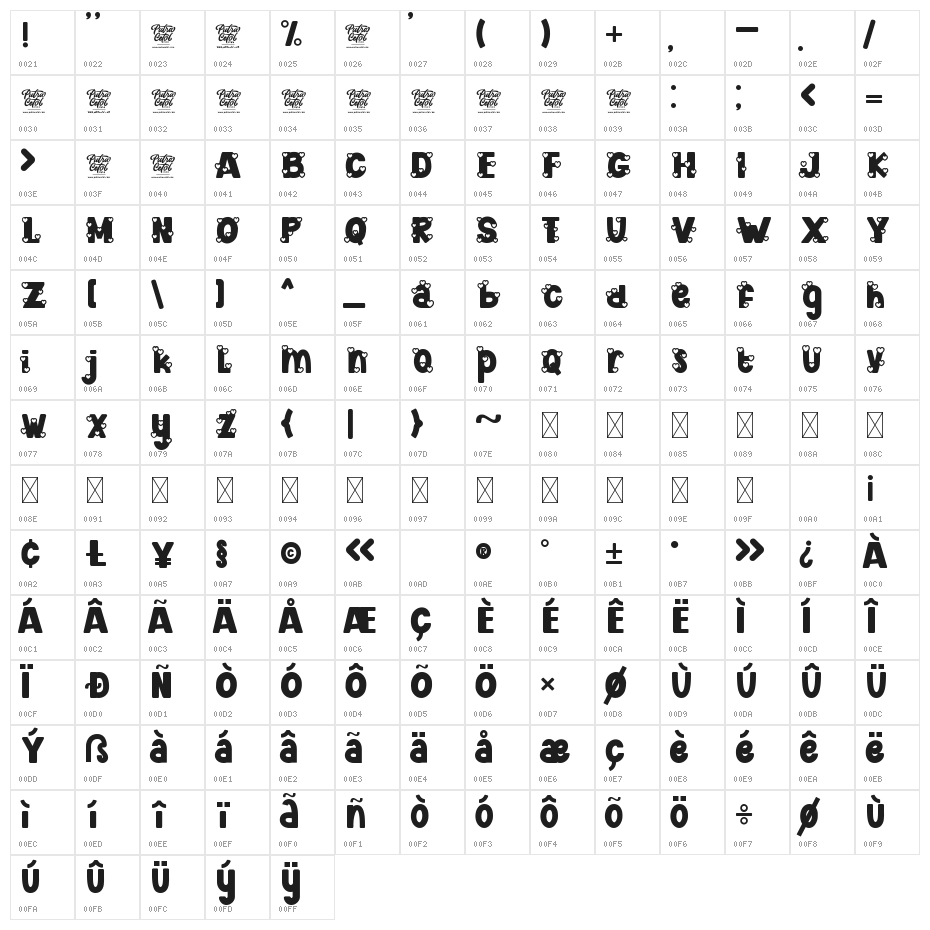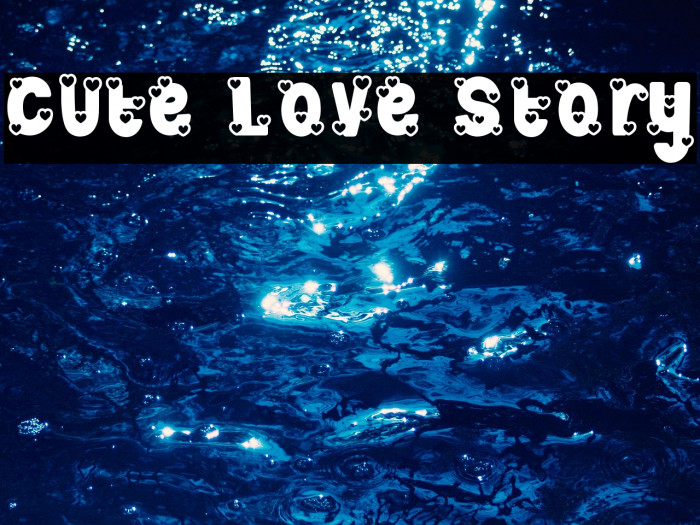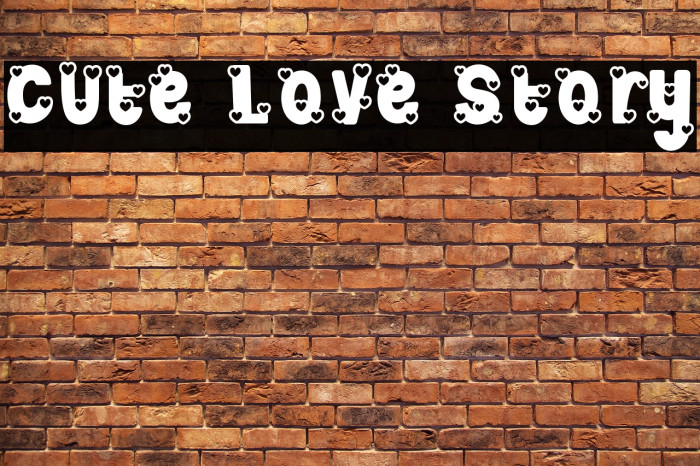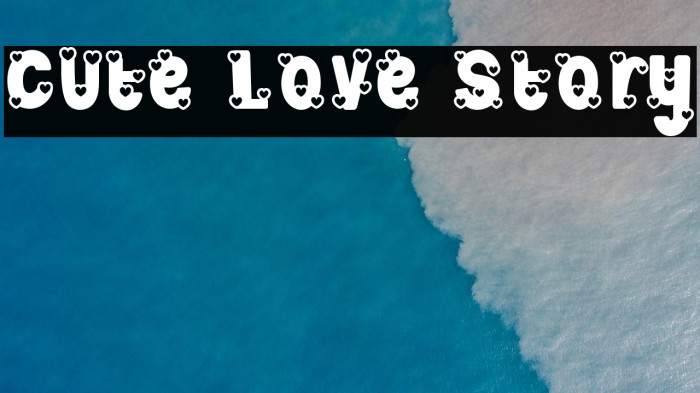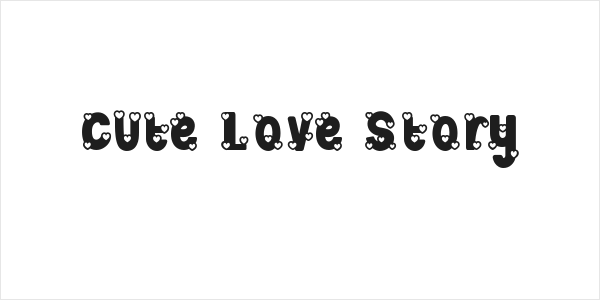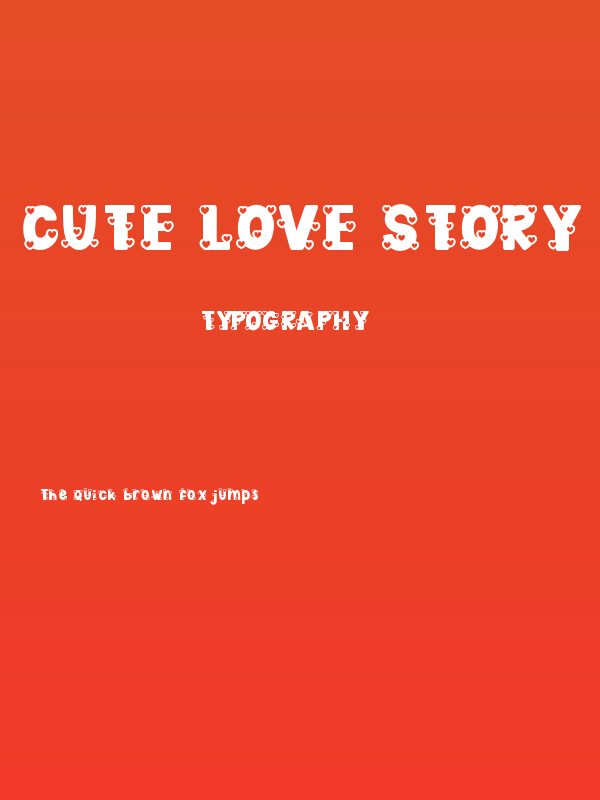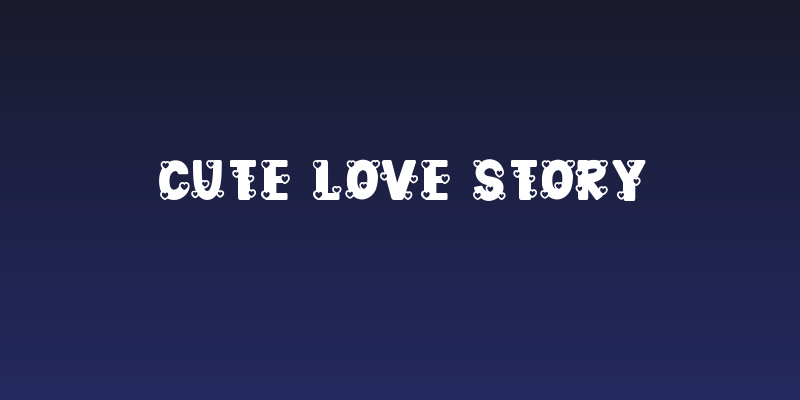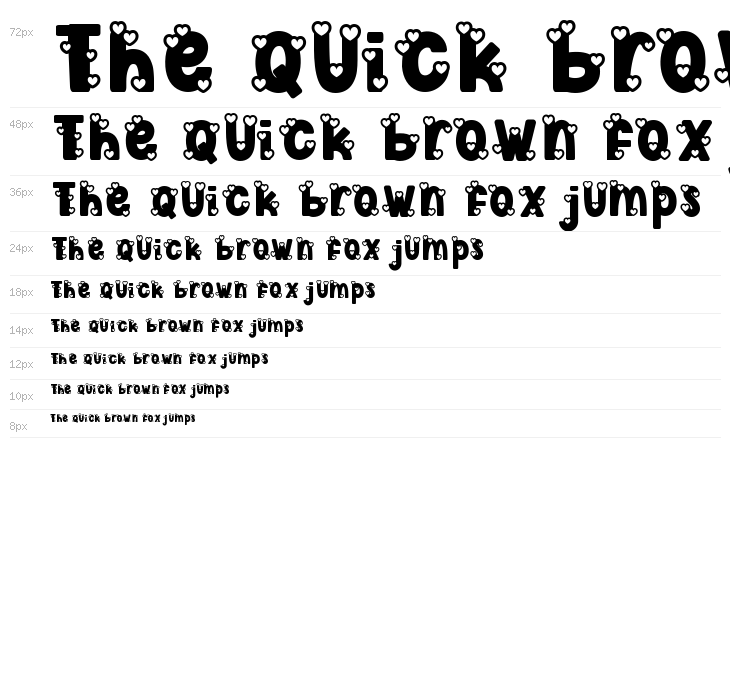
Cute Love Story Font
Cute Love Story Description
This playful and whimsical font features bold, rounded letters adorned with small heart shapes, giving it a charming and romantic appearance. The uppercase and lowercase letters maintain a consistent style, with a uniform thickness that enhances readability while adding a touch of fun. The inclusion of heart motifs within the letterforms makes it ideal for projects that aim to convey love, affection, or a sense of playfulness. The numbers and special characters are designed to match the overall theme, ensuring a cohesive look across all text elements.
| Overall Style | Playful, Romantic |
| Proposed Projects | Ideal for Valentine's Day cards, wedding invitations, love-themed posters, children's book covers, and playful branding. |